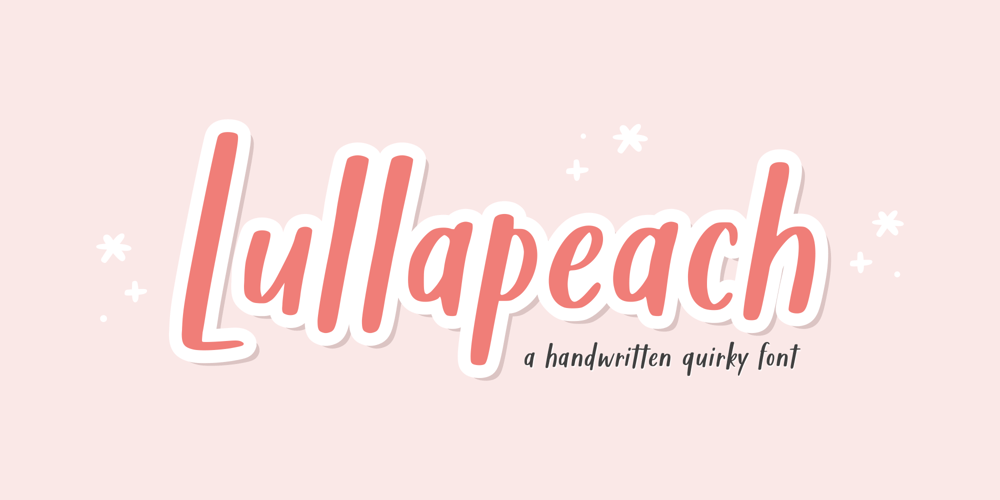
Lullapeach
Lullapeach font
Lullapeach Font Family was designed by Fachrizal Yusuf and published by Allouse Studio. Lullapeach contains 1 styles and family package options. Proudly Present, Lullapeach A Handwritten Quirky FontLullapeach is perfect for product packaging, branding project, megazine, social media, wedding, or just used to express words above the background.Lullapeach also come with Multi-Lingual Support.Enjoy the font, feel free to comment or feedback, send me PM or email. Thank You!